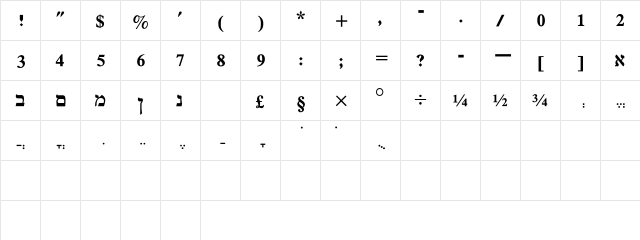
ZurikaB Bold
Design Context for ZurikaB Typeface
ZurikaB takes a measured approach to typography — its balanced proportions and neutral character make it a reliable workhorse for both digital and print work. Its bold stroke weight gives it real presence on the page.